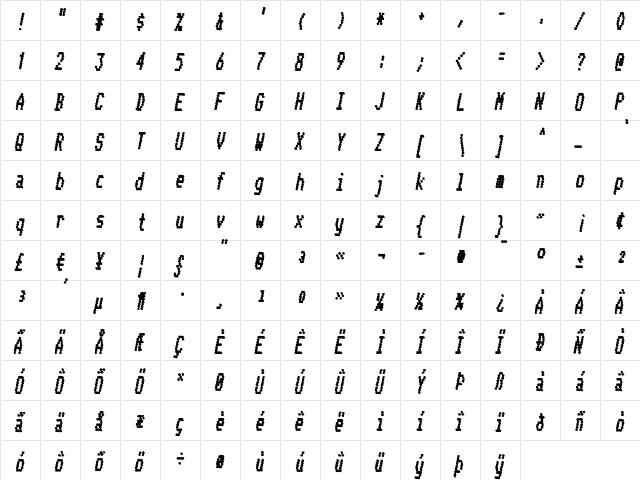
Telidon Ink CdHv Italic Font Preview
Telidon Ink CdHv Italic
Telidon Ink CdHv Italic Font Details
Design Context for Telidon Ink CdHv Typeface
Telidon Ink CdHv takes a measured approach to typography — its balanced proportions and neutral character make it a reliable workhorse for both digital and print work. The slanted form adds forward momentum and visual energy.
Pro Tip: Try Telidon Ink CdHv for annotation and caption copy alongside an upright companion — the contrast in angle creates a dynamic but ordered typographic system.